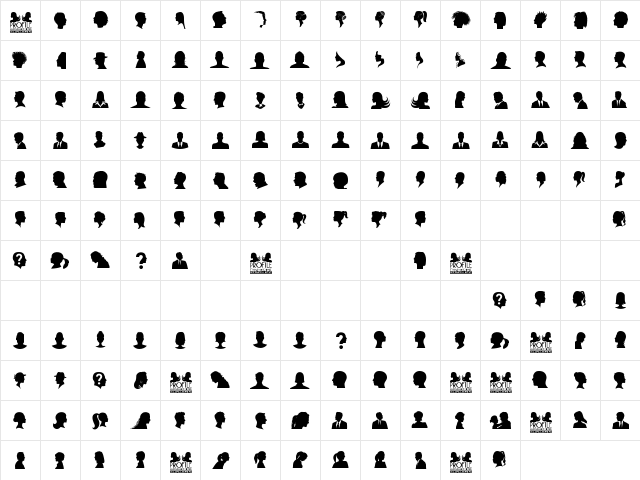
Profile Regular
| Designer | Woodcutter Manero |
Design Context for Profile Typeface
Profile is a composed and adaptable typeface that performs quietly and consistently across a wide range of design contexts.